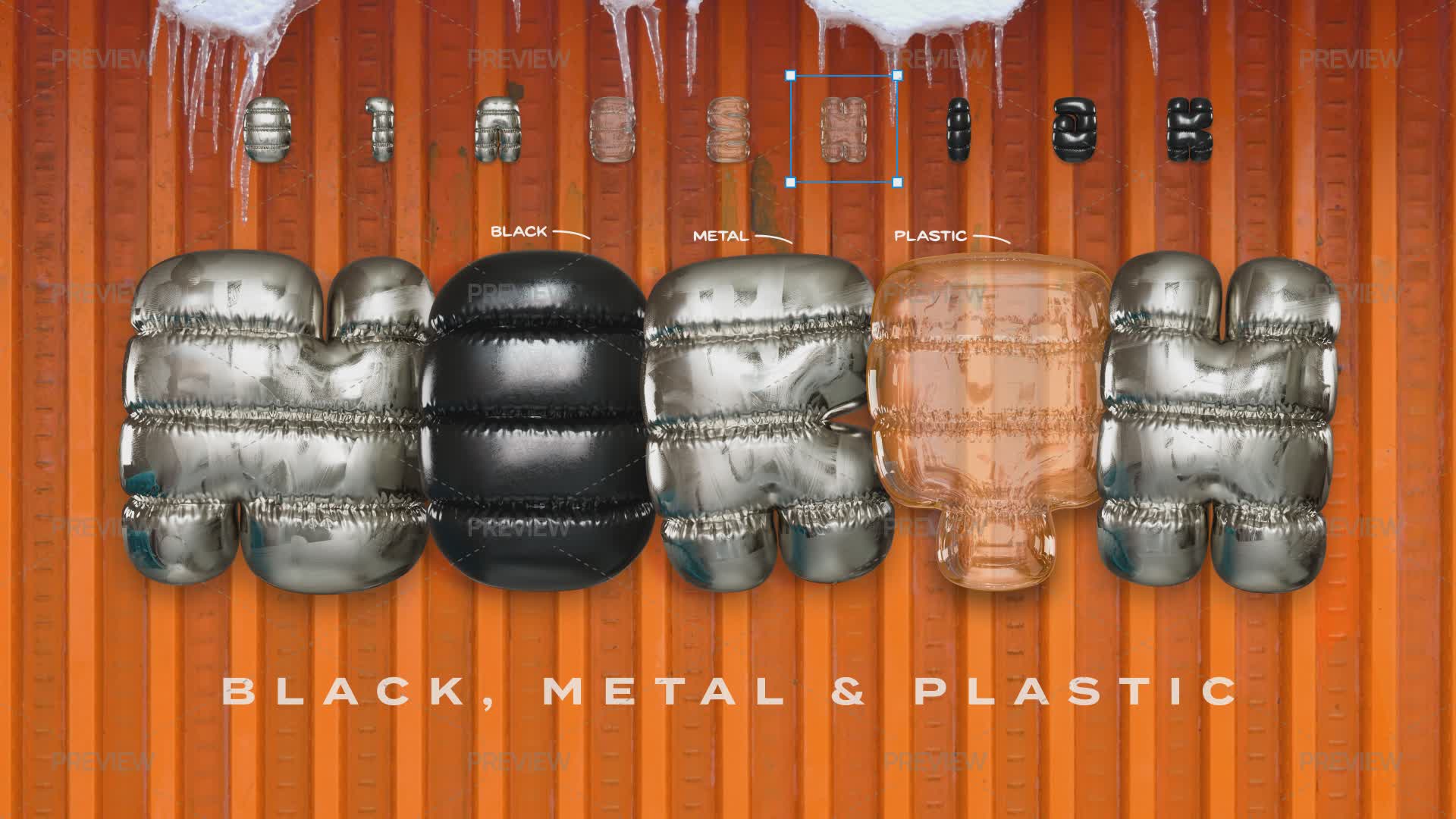
Introducing “North,” a meticulously crafted 3D letter set designed to bring bold style to your creative projects. With 3 distinct textures—Black, Metal, and Transparent Plastic.